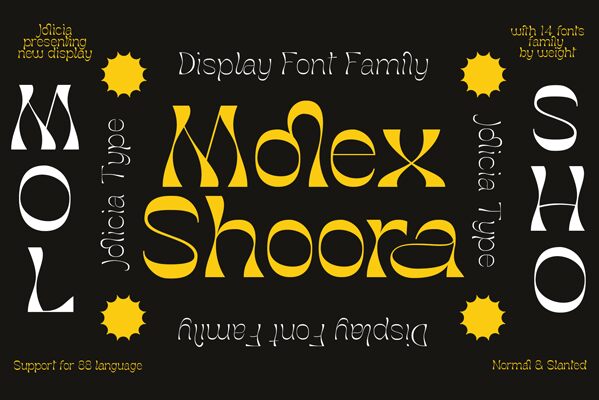
Molex Shoora Bold is a groovy display font designed by Laire Banyu Sandi Pawenang. Perfect for creating eye-catching posters, logos and titles, this font is sure to make your projects stand out!
Molex Shoora is a typeface that is inspired by retro-style writing. We make each element with a unique style, made on the top and bottom edges thick and in the middle it starts to thin which is consistent with each letter
Molex Shoora
Display Font Made By Jolicia Type